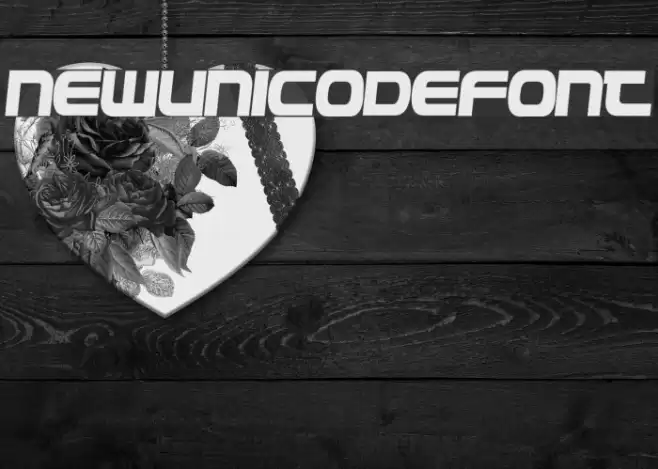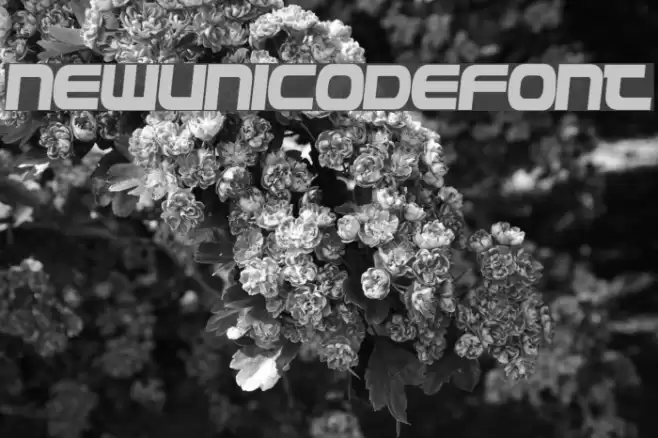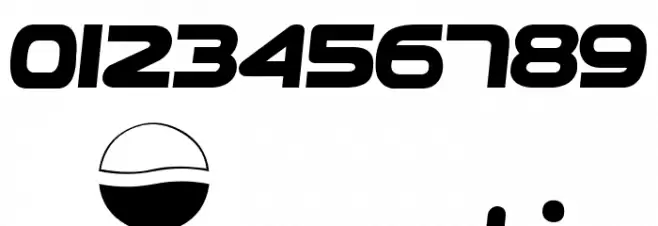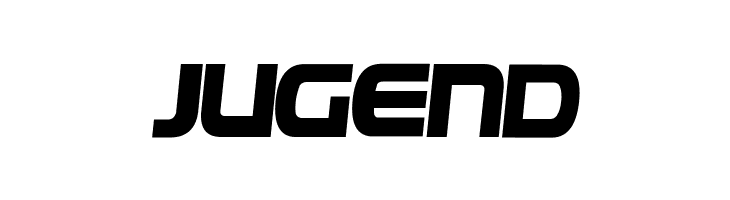
NewUnicodeFont Font
NewUnicodeFont Description
This font features a bold and modern design with a futuristic flair. The characters are slightly slanted, giving a sense of motion and dynamism. The strokes are thick and consistent, providing a strong visual impact. The overall design is sleek and geometric, with rounded edges that soften the boldness. The numbers and letters are uniform in height, contributing to a cohesive appearance. This font is ideal for projects that require a contemporary and energetic look, such as technology branding or sports-related materials.
A bold, modern font with a futuristic and dynamic style from Uncategorized fonts.
- Proposed Projects: Ideal for technology branding, sports materials, and modern advertising campaigns.